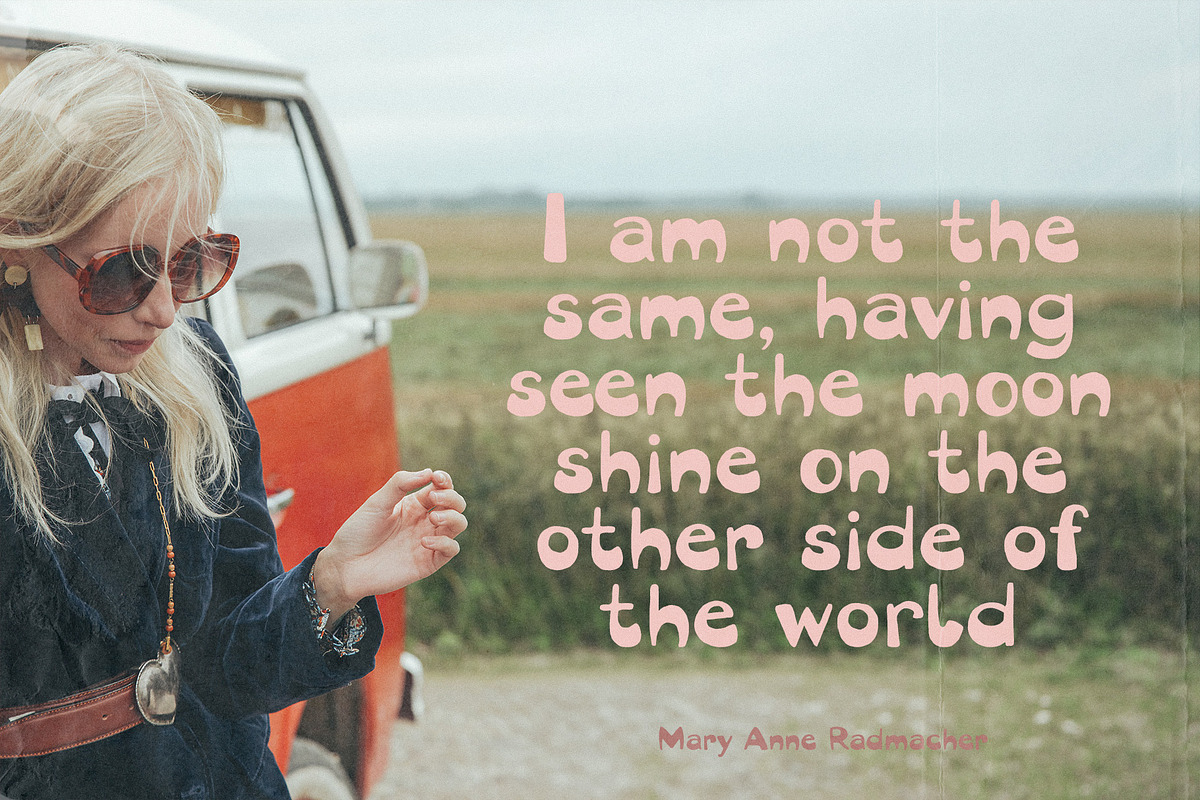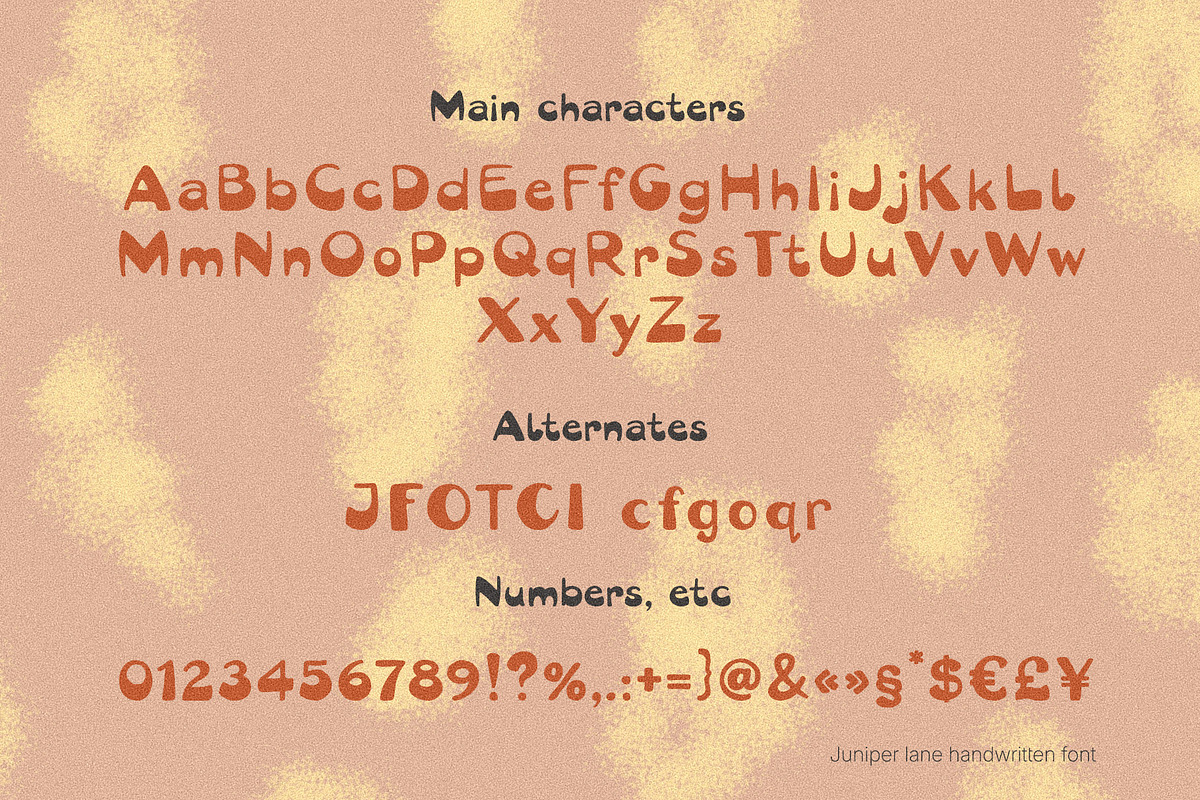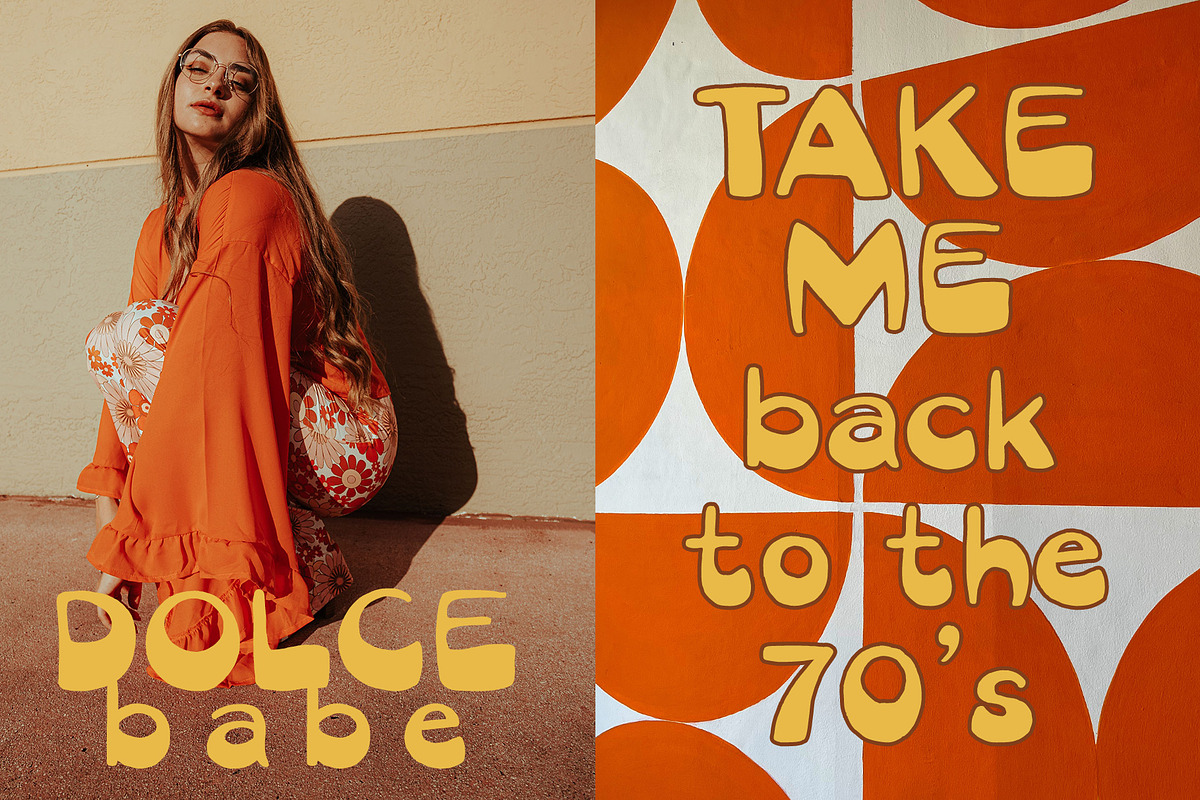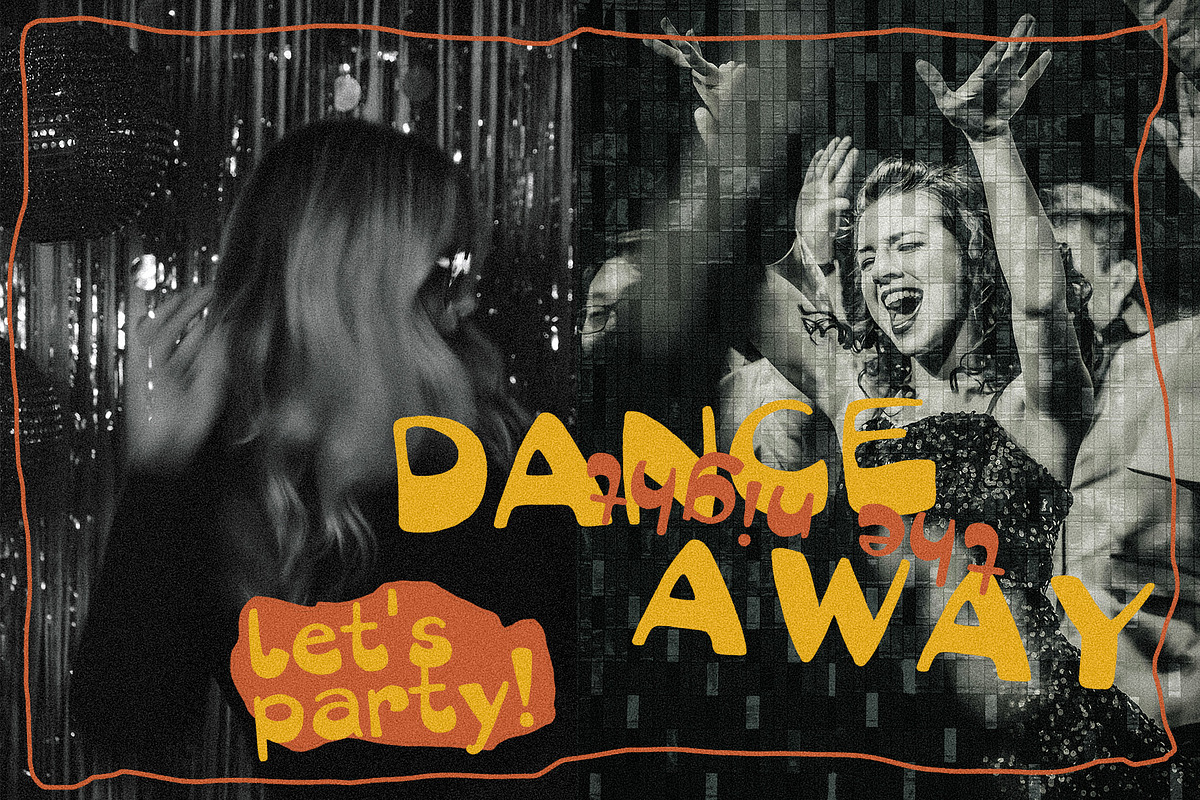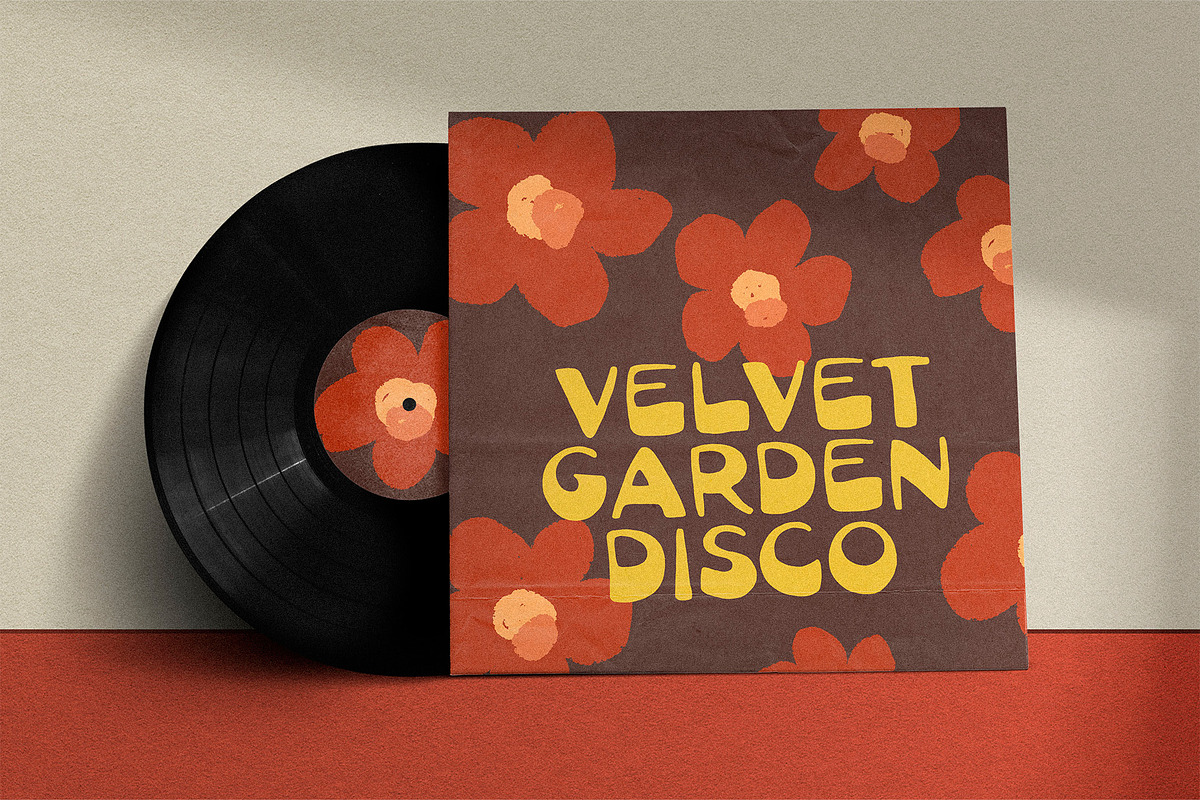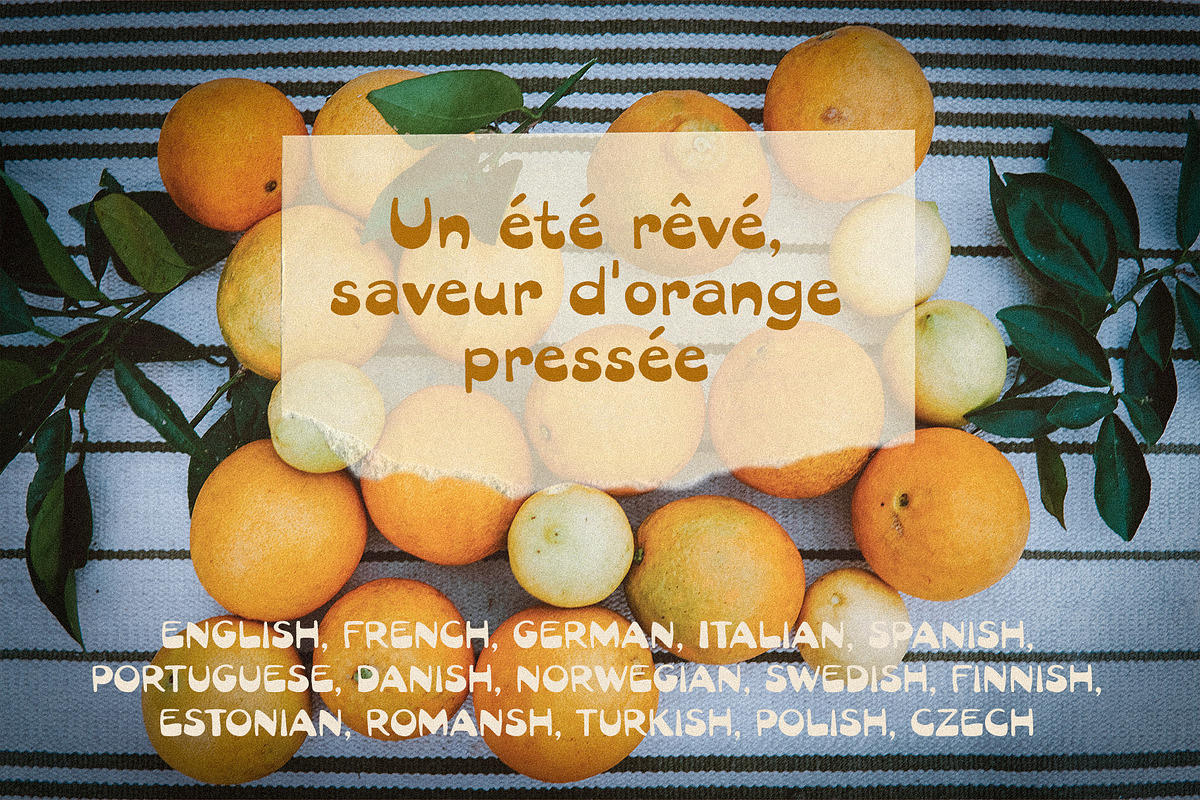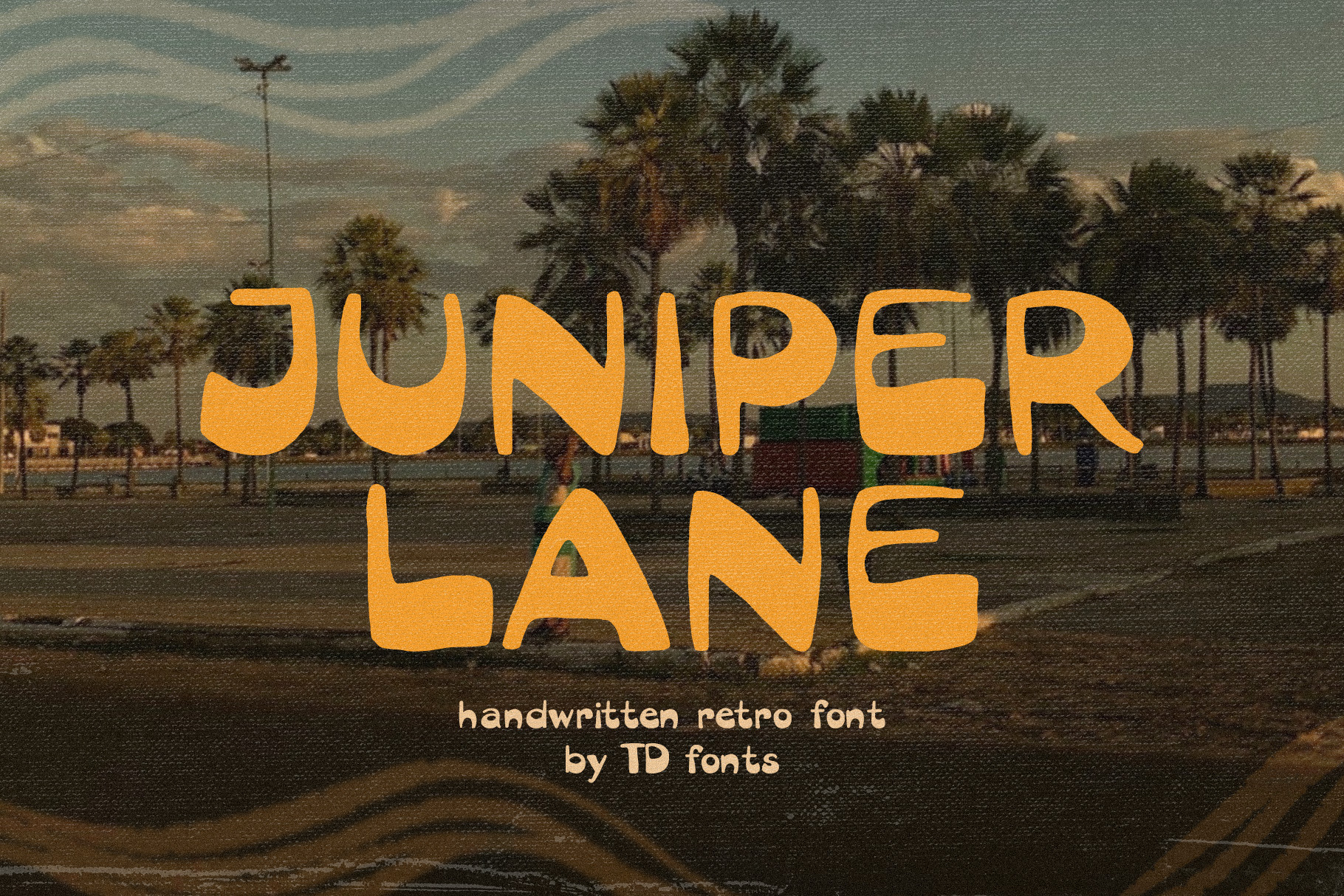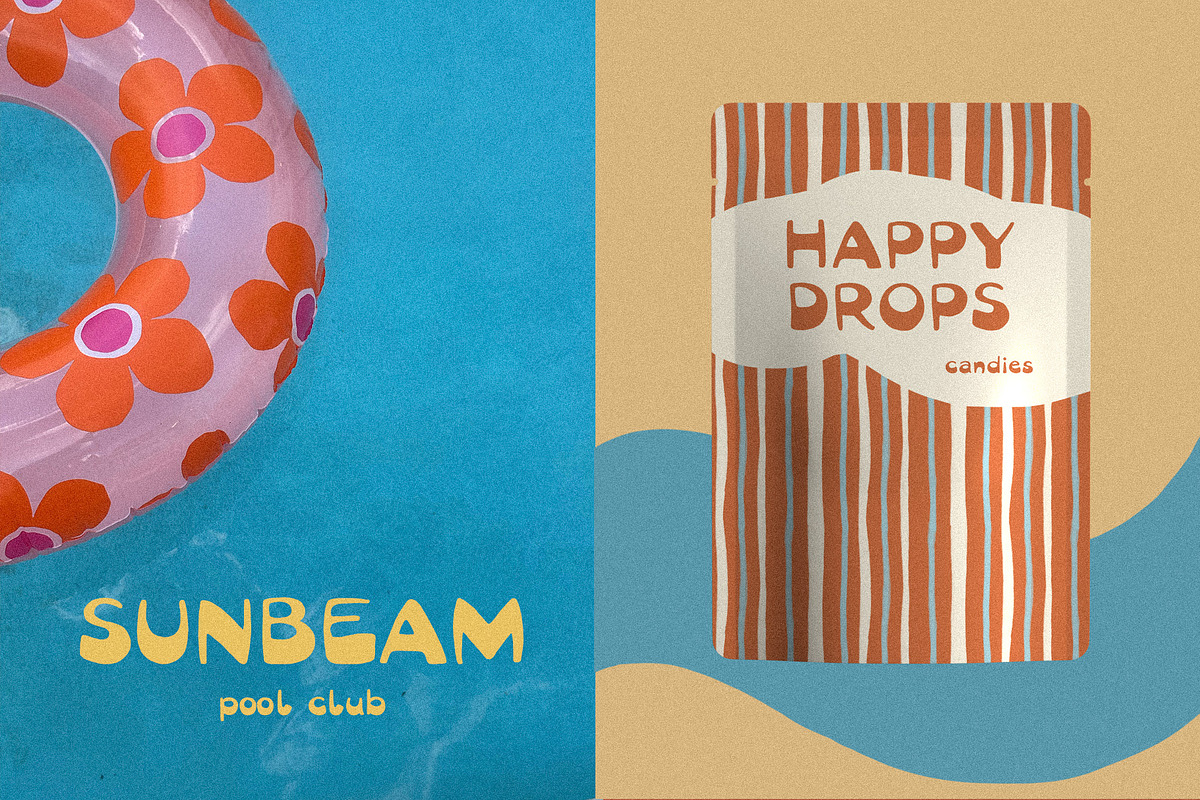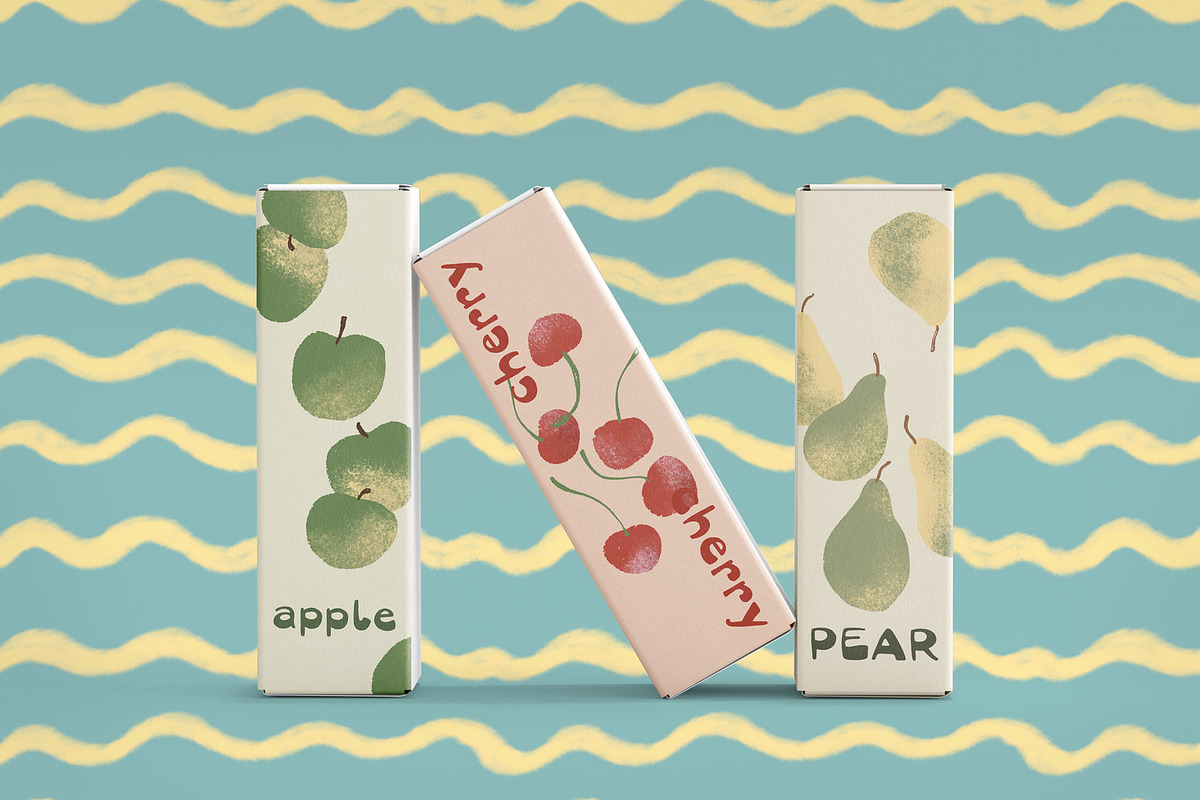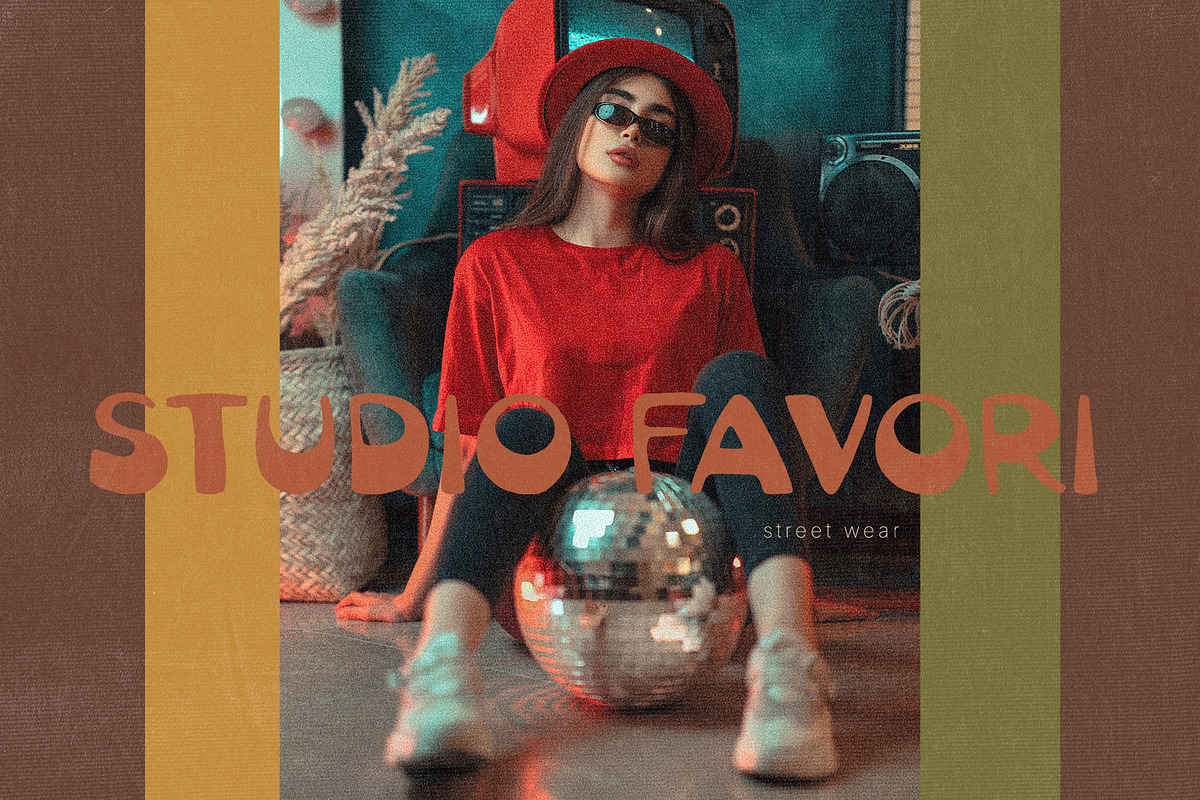
Juniper Lane is a bold, retro bubble font inspired by the rounded, hand-lettered typography found on old book covers — reimagined for today's design work. Every letter carries a soft, inflated shape with a confident, chunky weight, giving your designs an instantly recognizable vintage character without feeling dated. It's a font built to feel warm, playful, and a little nostalgic — like a good memory you can't quite place, but instantly recognize.
Visual Aesthetic & Design Features
Bold Bubble Letterforms: Thick, rounded, and evenly weighted — built to command attention in headlines, logos, and packaging.
Handwritten Character: Drawn by hand to keep the organic imperfections that give the font its warm, nostalgic personality.
Playful Yet Versatile: Groovy 70s charm balanced with clean, legible shapes that work just as well on a modern product label as on a vintage-style poster.
Alternate Characters: Includes stylistic alternates for J, F, O, T, C, I and lowercase c, f, g, o, r — giving you more control over the handmade look in every word.
Retro & Vintage Branding: Record labels, retro diners, vinyl covers, disco nights, groovy party themes, throwback product lines.
Streetwear & Youth Culture: T-shirt graphics, hoodie prints, tote bags, sticker packs, skate brand logos.
Indie Packaging & Food Branding: Snack bags, candy wrappers, juice bottles, ice cream branding, fruit-themed labels, craft beverage packaging.
Hospitality & Lifestyle: Pool clubs, boutique motels, summer camps, roadside diners, van life and travel branding.
Music & Entertainment: Album covers, gig posters, festival flyers, playlist covers, band merch.
Social Media & Content Creation: Instagram quote graphics, YouTube thumbnails, TikTok covers, blog headers, newsletter graphics.
Editorial & Print: Magazine headlines, zine covers, book titles, greeting cards, novelty stationery.
Signage & Environmental Graphics: Storefront signs, café menus, wall murals, event signage.
Mood & Personality Nostalgic, playful & confident. Juniper Lane feels like a Sunday afternoon in an old photograph — warm, unhurried, a little sun-faded, but full of character. It's the kind of font that turns a plain headline into something people want to look at twice.
Character Set: Uppercase, lowercase, numbers, punctuation, and stylistic alternates.
OpenType Features: Alternate characters for a more natural, varied hand-lettered feel.
Extensive Language Support Juniper Lane supports Western, Central, and South-Eastern European languages.
- Latin Support: English, French, German, Italian, Spanish, Portuguese, Danish, Norwegian, Swedish, Finnish, Estonian, Romansh, Turkish, Polish, Czech.